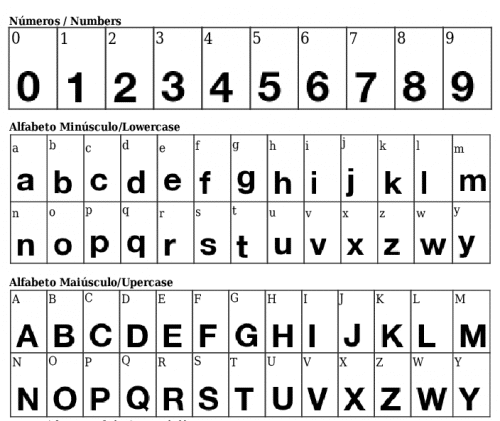
Helvetica Neue Bold Font is part of Helvetica Font Family. This typeface was initially released as Neue Haas Grotesk, and was designed in 1957 by Max Miedinger for the Haas’sche Schriftgiesserei (Haas Type Foundry) in Switzerland.
The name was changed to Helvetica (an adaptation of Helvetia, the Latin name for Switzerland) by Walter Cunz when D. Stempel AG, a major stockholder in Haas, reworked the design for Linotype GmbH in Frankfurt, a major stockholder in Stempel. The Mergenthaler Linotype Company in New York, then a major stockholder of Linotype GmbH, adopted the design, and it rapidly became the most popular sanserif in the world, replacing Futura.
Helvetica is designed as a strong central series, with condensed and extended forms and extreme weights adapted and added later, a system which suited Linotype mechanical limitations and marketing philosophy, but which resulted in a family of weights that were not as well coordinated as they might have been.
Linotype’s limited licensing forced a large number of unauthorized copies of Helvetica, none of which may be viewed as an improvement.
- Designer: Matthew Carter, Max Miedinger, Edouard Hoffmann